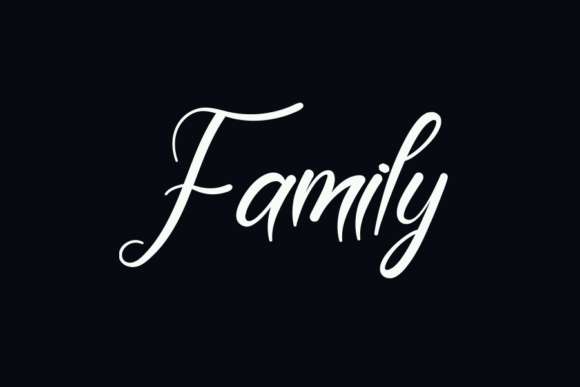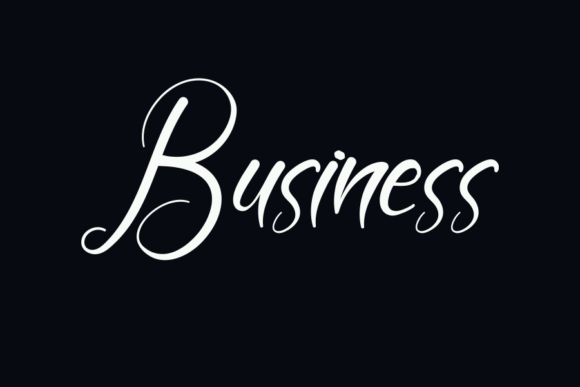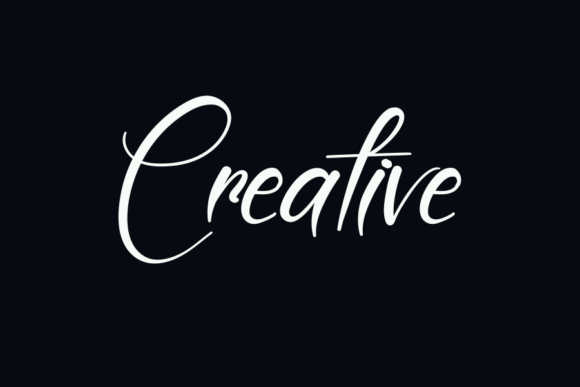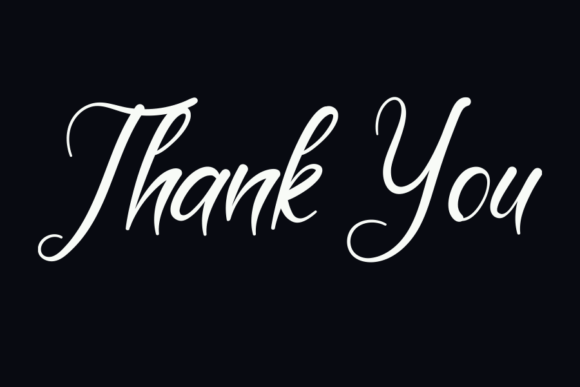
Elements Font
About Elements Font
Elements Font is a lighthearted and approachable handwritten typeface crafted for creativity. Its soft, natural strokes and clean letterforms make it a versatile addition to any project needing a personal, handcrafted feel. Whether you’re designing classroom materials, crafting digital products, or creating DIY invitations, the Elements font download is ready to bring charm and clarity to your work.
Balanced and easy to read, this font evokes friendliness and warmth, making it ideal for both casual and professional projects.
Ideal Uses for Elements Font
The Elements font is perfect for a wide range of applications, such as:
• Craft Projects – Labels, scrapbooks, Cricut templates, and handmade signage
• Social Media Graphics – Instagram quotes, digital planners, and Canva designs
• Greeting & Invitation Cards – Personalized messages for birthdays, holidays, and more
• Educational Materials – Posters, worksheets, and learning presentations
• Product Packaging & Branding – Homemade goods, boutique products, and small business labels
This font’s friendly tone helps your designs feel genuine and accessible.
Features
• Handwritten Style – Clean lines with a handcrafted vibe
• Multilingual Support – Full basic Latin alphabet, numerals, and punctuation
Why Choose Elements Font?
The Elements font download is your new go-to for effortless charm. Its simplicity doesn’t sacrifice impact—every letter has a relaxed flow while maintaining excellent legibility. Whether you’re working on a professional design or a cozy personal project, this font keeps your message friendly, clear, and stylish.